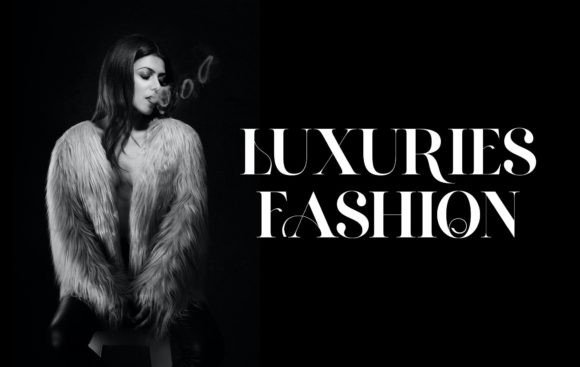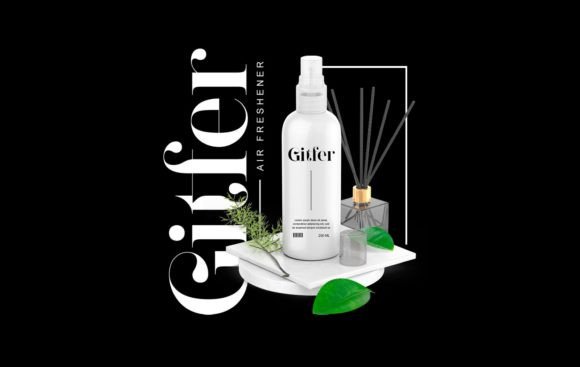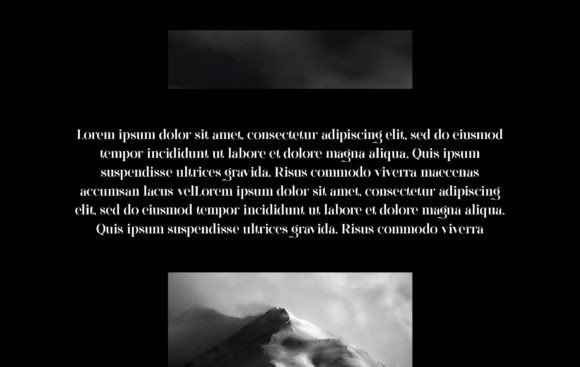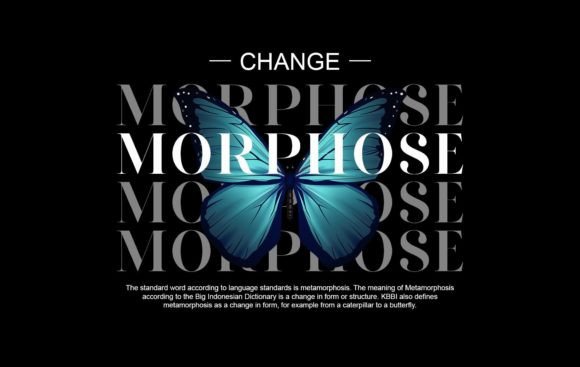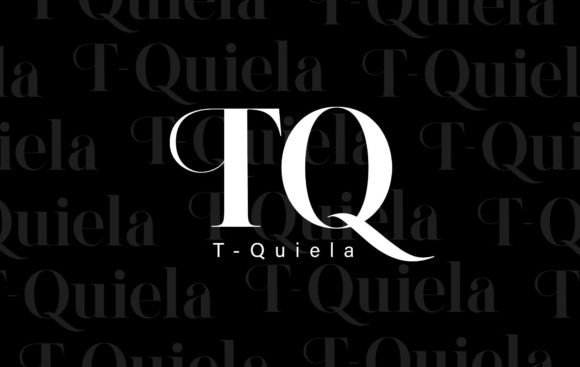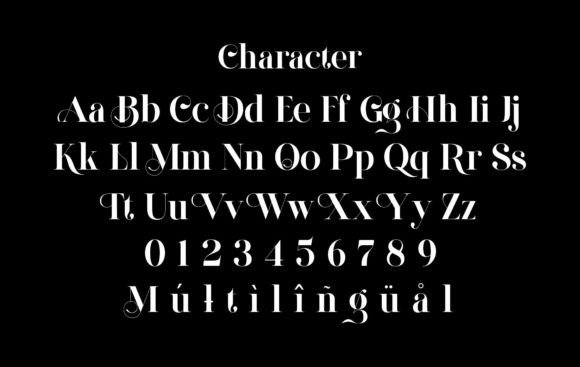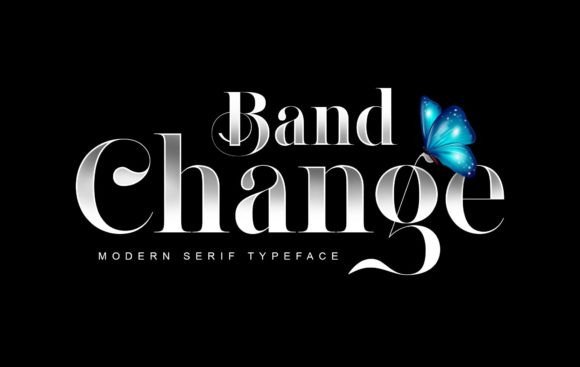
Introducing Band Change Font: Elevate Your Designs with a Touch of Elegance
In the world of typography, fonts play a crucial role in conveying the tone and aesthetic of a design. For designers and crafters looking to add a touch of sophistication and vintage charm to their projects, the Band Change font is an excellent choice. This modern and stylish serif font boasts an incredible vintage aesthetic, making it perfect for a wide range of design applications.
What is Band Change Font?
Band Change is a carefully crafted serif font that combines the elegance of traditional typography with the uniqueness of modern design. Its vintage aesthetic is reminiscent of classic band posters, music labels, and stylish editorials from the past, yet it retains a contemporary feel that makes it suitable for today’s design needs.
Key Features of Band Change Font
- Modern Serif Design: Band Change features a serif design that gives it a classic look, while its modern twists ensure it stands out in any design.
- Vintage Aesthetic: The font’s vintage charm is perfect for projects that require a nostalgic feel, such as branding for music-related events, fashion labels, and editorial content.
- Elegant Touch: Adding Band Change to your designs instantly elevates them with an air of elegance and sophistication, making it ideal for high-end branding, luxury packaging, and more.
- Versatility: This font is incredibly versatile and can be used across various design platforms, including digital media, print materials, and handmade crafts.
How to Use Band Change Font in Your Designs
Integrating Band Change into your projects is straightforward, and its versatility means it can be adapted to a multitude of design ideas. Here are some ways to make the most of this elegant font:
Digital Designs
For digital designers, Band Change can be used in a variety of applications, such as:
- Branding: Enhance your brand’s visual identity with a sophisticated and memorable font.
- Web Design: Add a touch of elegance to your website’s typography.
- Social Media Graphics: Stand out on social media with eye-catching text that exudes style.
Print Designs
For print designers and crafters, Band Change offers endless possibilities:
- Posters and Flyers: Create striking posters and flyers with a vintage flair.
- Business Cards: Elevate your business cards with a sophisticated and memorable font.
- Packaging: Add an elegant touch to product packaging, making your brand stand out on store shelves.
Crafting and DIY Projects
Crafters and DIY enthusiasts can also benefit from using Band Change in their projects:
- Handmade Cards: Add a personal touch to handmade cards with elegant typography.
- Journaling: Enhance your journal pages with stylish headings and titles.
- Scrapbooking: Bring your scrapbook pages to life with the vintage charm of Band Change.
Band Change font is a powerful tool for designers and crafters looking to add an elegant and vintage touch to their projects. Its modern serif design, combined with its incredible vintage aesthetic, makes it a versatile and stylish choice for a wide range of applications. Whether you’re working on digital designs, print materials, or handmade crafts, Band Change is sure to elevate your work and make it stand out.